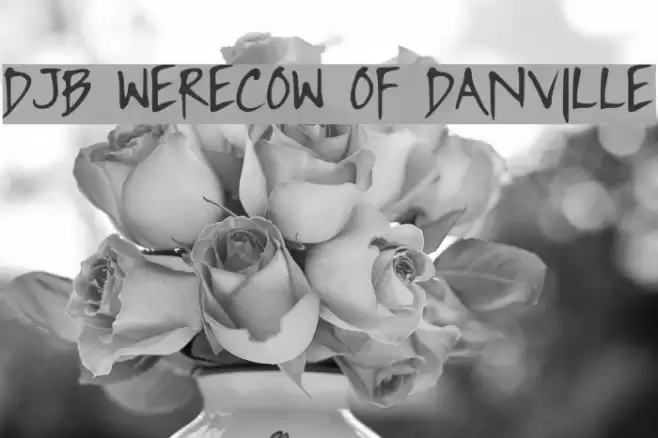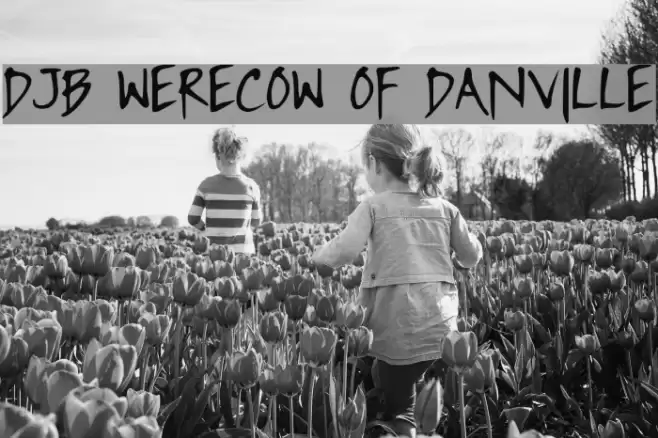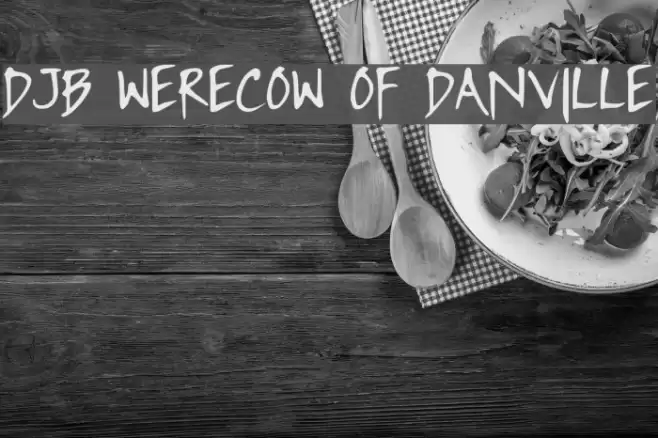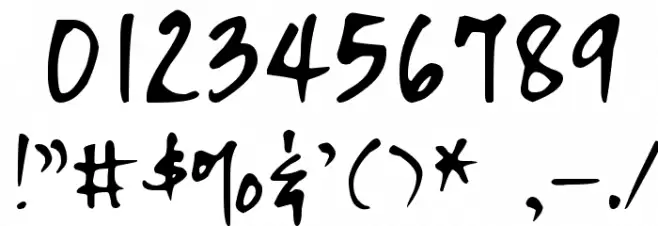
DJB WERECOW OF DANVILLE Font
DJB WERECOW OF DANVILLE Description
This font exudes a playful and energetic vibe, characterized by its handwritten style. The letters are slightly irregular, adding a personal and informal touch. The strokes are bold and confident, with a slight slant that suggests movement and spontaneity. The uppercase and lowercase letters maintain a consistent style, with rounded edges and a casual flair. Numbers and special characters follow the same lively design, making the font versatile for various creative applications. Its dynamic appearance makes it suitable for projects that require a fun and approachable aesthetic.
A playful, handwritten font with bold strokes and a casual, energetic style from Uncategorized fonts.
- Proposed Projects: Ideal for children's book covers, playful branding, greeting cards, and social media graphics.
- Overall Style: Playful, Energetic, Casual
- Use Case: Headlines, Logos, Informal Text